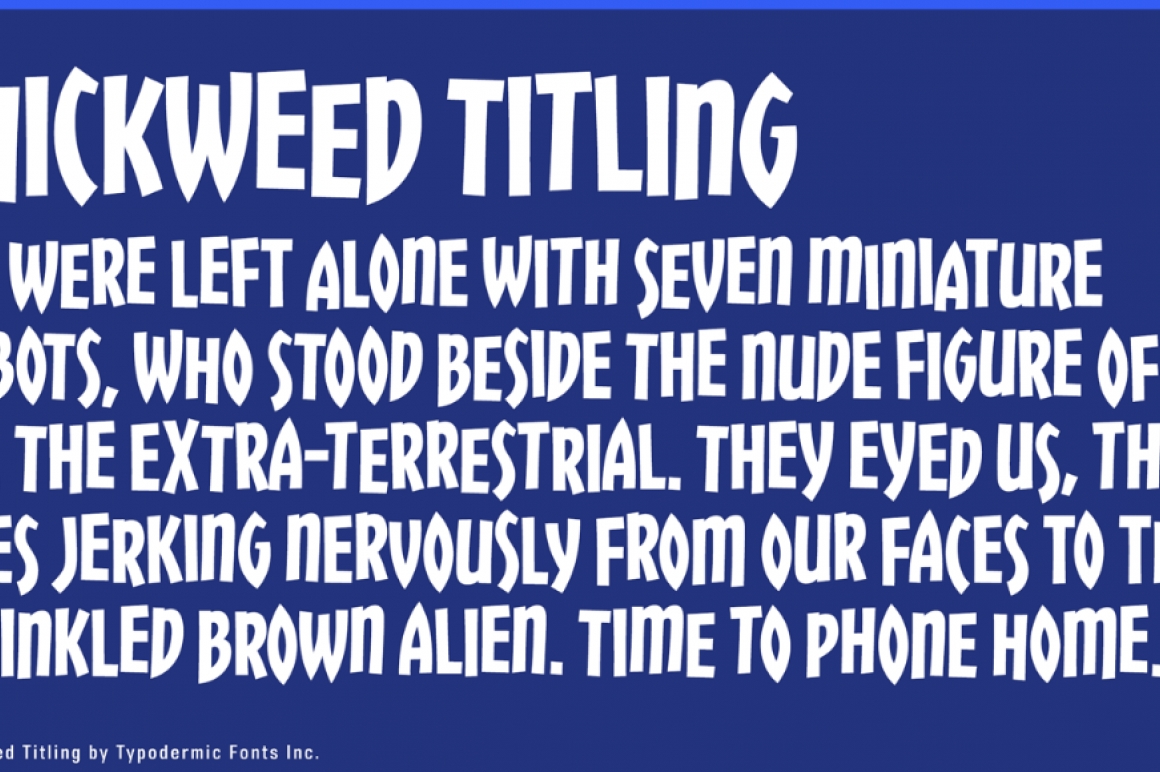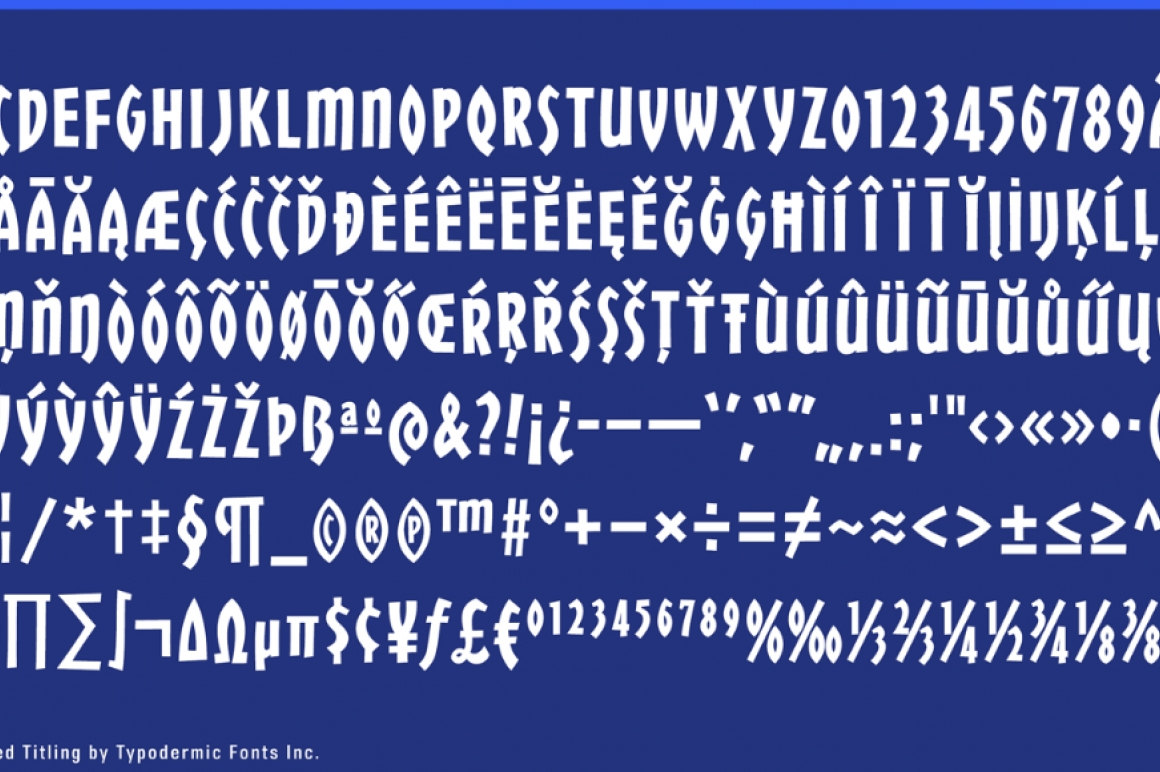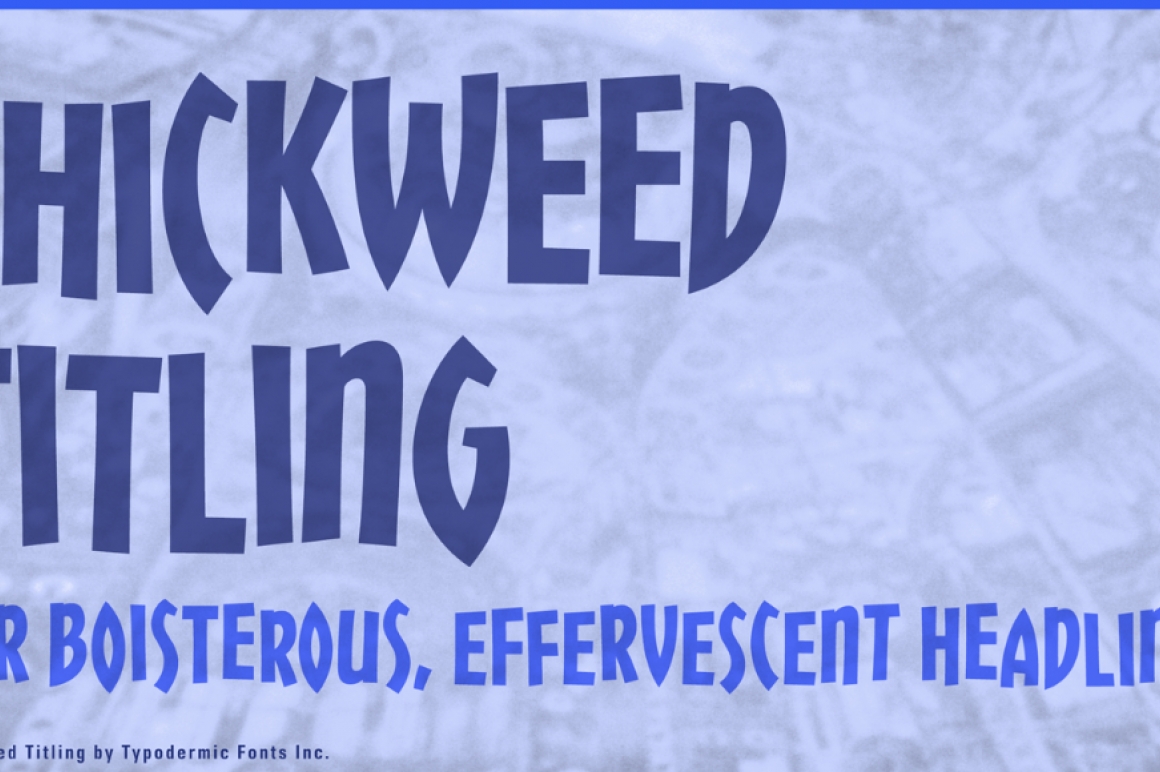
Chickweed Titling
When you want entertaining, casual headlines that take up minimal space, Chickweed is your font. In OpenType savvy applications, letter & numeral variations are automatically shuffled for a more natural, giddy look. If you’d like a version with lowercase, check out the regular Chickweed typeface.